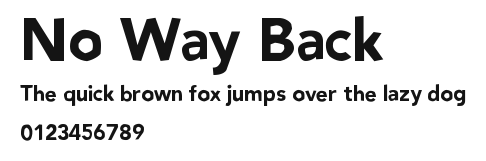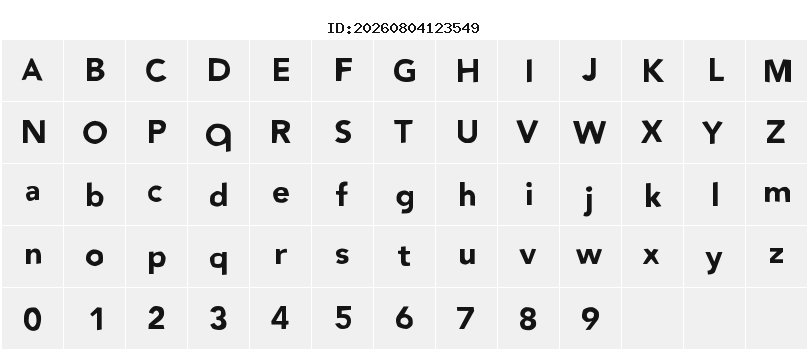
• Font Name: No Way Back
• Full Font Name: No Way Back
• Designer: Adrian Frutiger
• Manufacturer: Adobe
About No Way Back.ttf
No Way Back.ttf is a modern, elegant sans-serif font designed for ultimate readability and visual harmony. Perfect for branding, headlines, web design, and print materials.